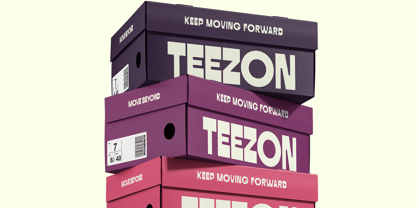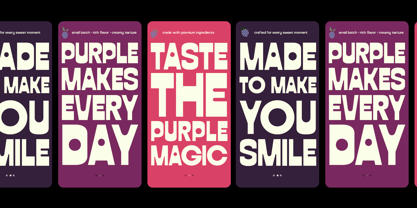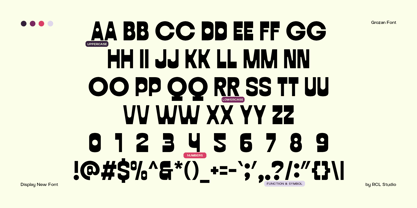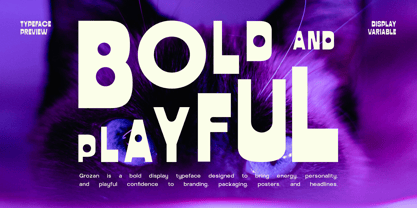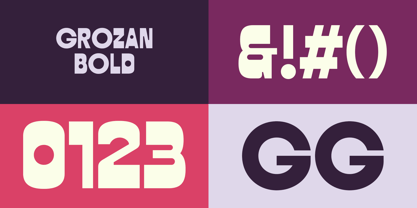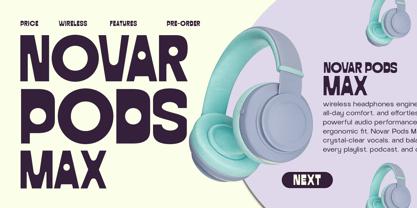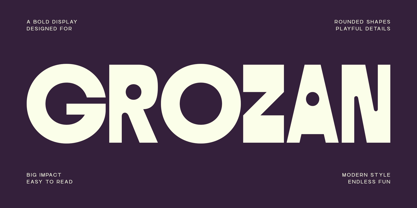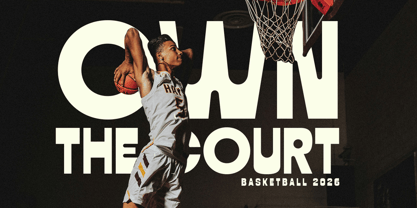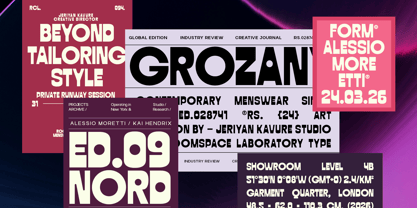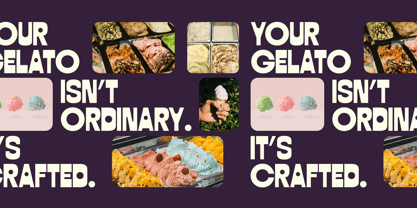
Grozan
The Grozan Font Family was designed by Bakhrudin Ja'far and published by Jafar07. Grozan contains 2 styles and family package options. More about this family
Grozan is a bold, playful display typeface designed with chunky proportions, rounded geometric shapes, and distinctive letter details. Its unconventional forms and playful cuts create strong, expressive headlines with a unique visual personality while maintaining clear and recognizable letterforms.
Designed primarily for display use, Grozan is ideal for branding projects that need a bold and energetic typographic presence. Whether you're creating logos, product packaging, posters, sports graphics, editorial layouts, fashion campaigns, food and beverage branding, apparel graphics, or social media visuals, this typeface brings a playful character and strong visual impact to every composition.
Its distinctive letterforms make Grozan especially suitable for expressive typography, creative headlines, and contemporary visual identities where type needs to become an important part of the overall design.